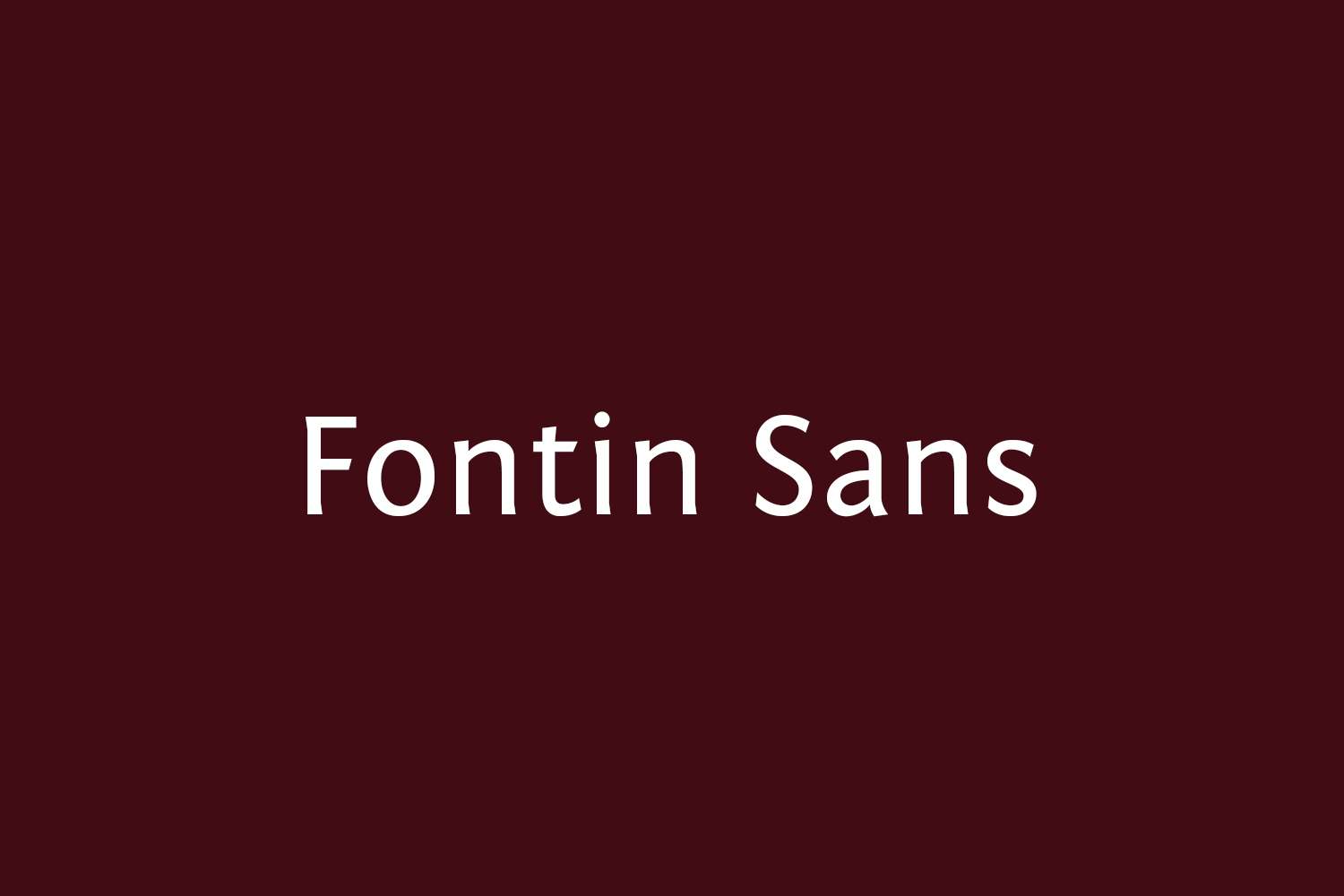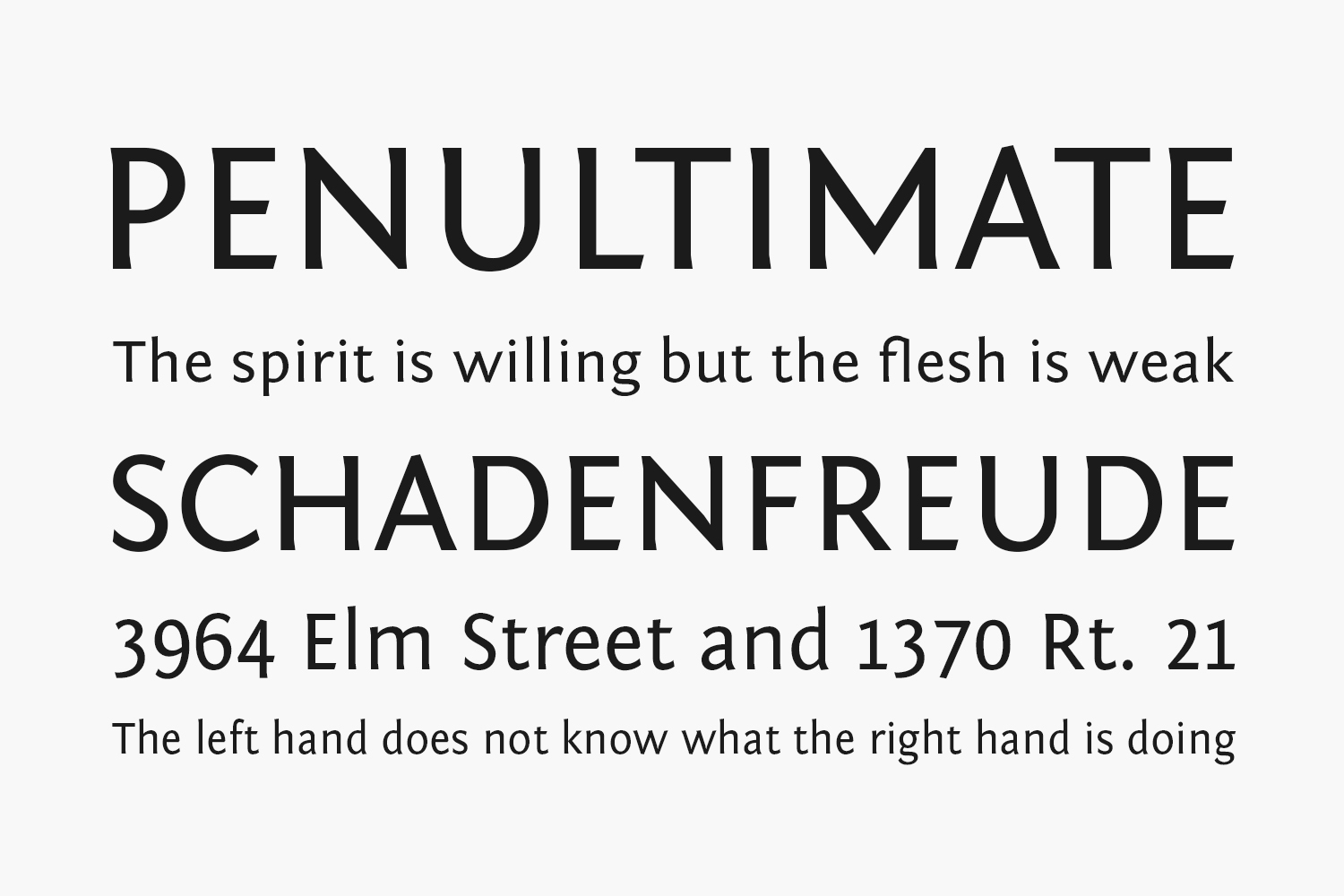
I’ve designed Fontin Sans Free Font Family to be a suitable sans companion of Fontin. With a nice classical appearance it will be a perfect match.
Designed by Exljbris